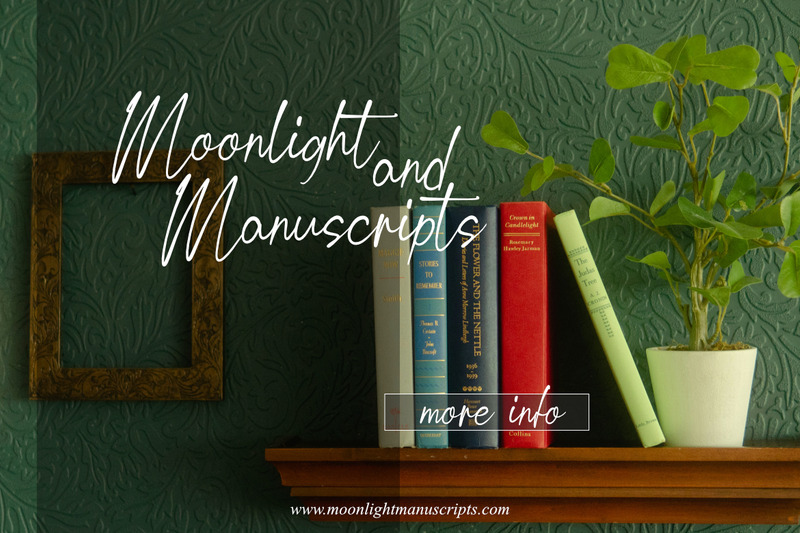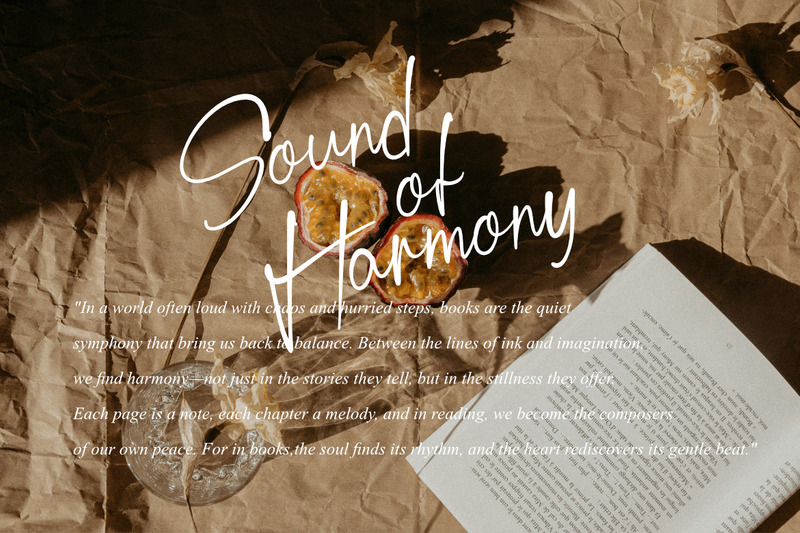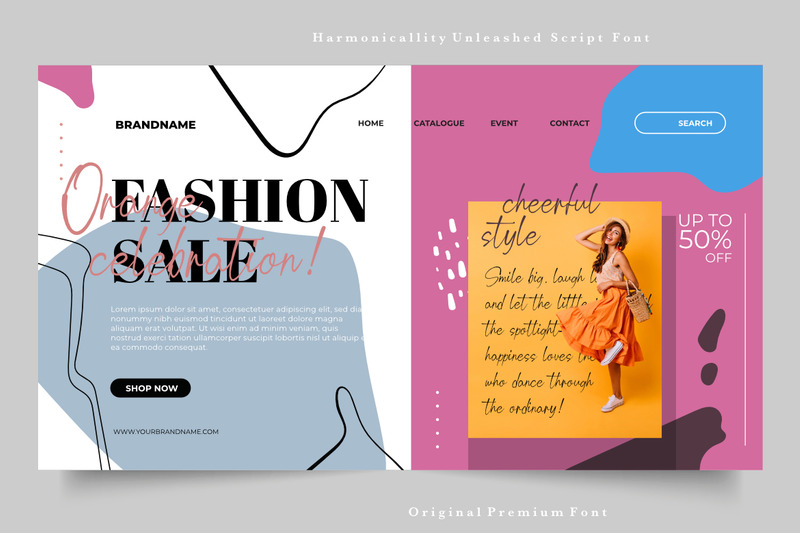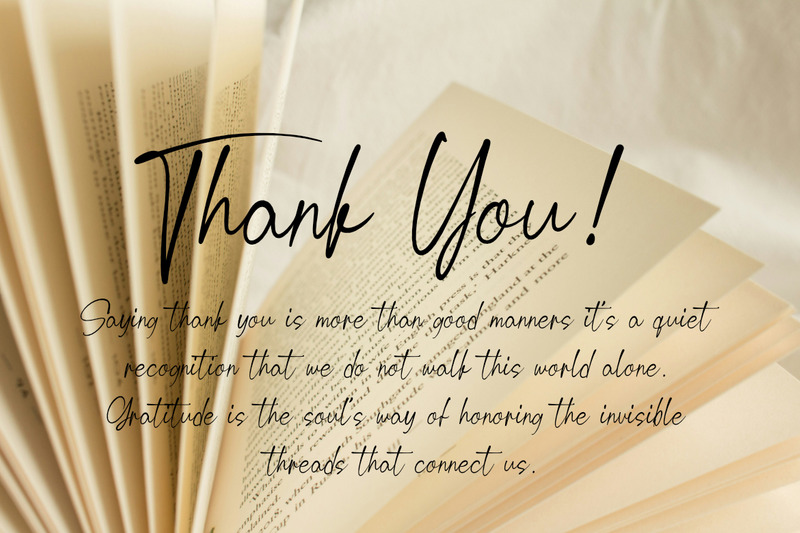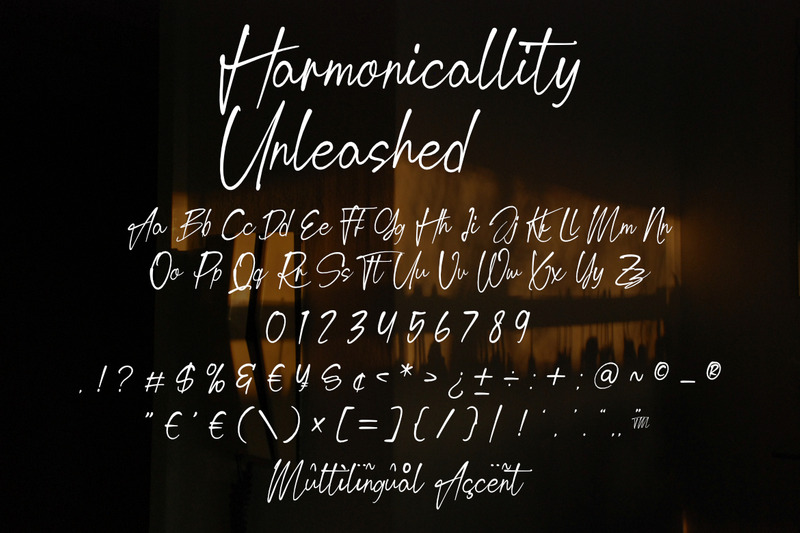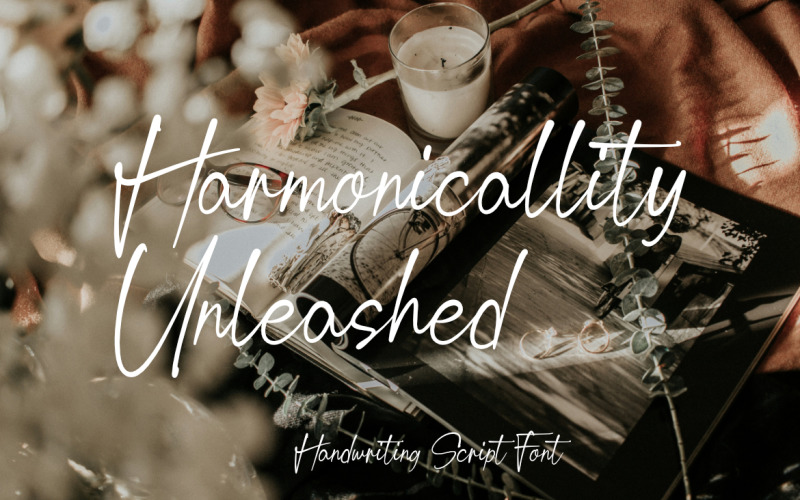
Harmonicallity Unleashed Handwriting Script Font
**Harmonicallity Unleashed Script Font**, This font is made with a high premium quality level which you can use as flyers, quotes, posters, banners, packaging, merchandise, logotypes and much more.
**FEATURES :**
* Uppercase
* Lowercase
* Number
* Punctuation
* Multilingual